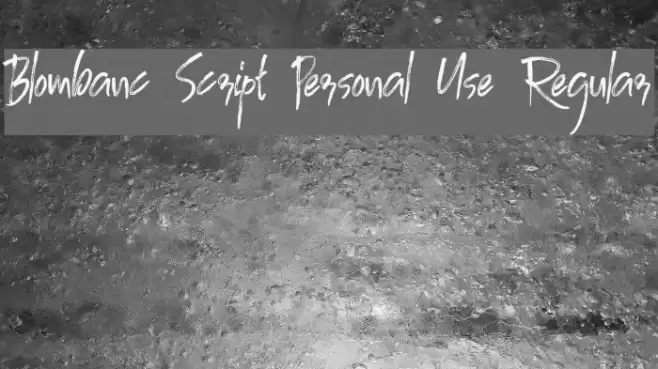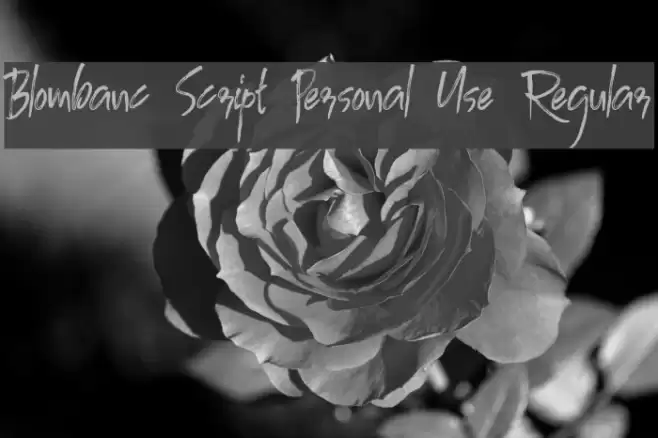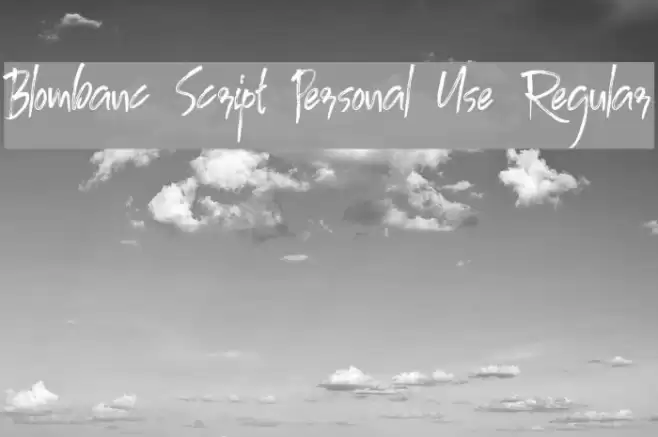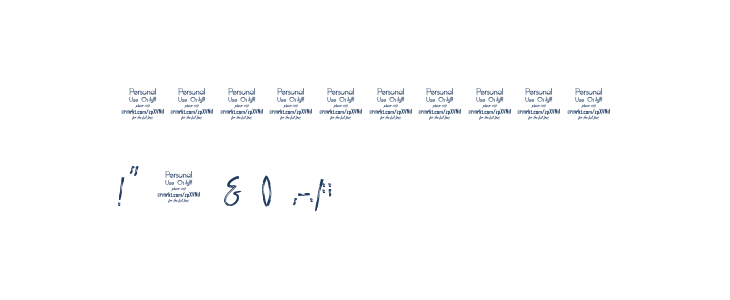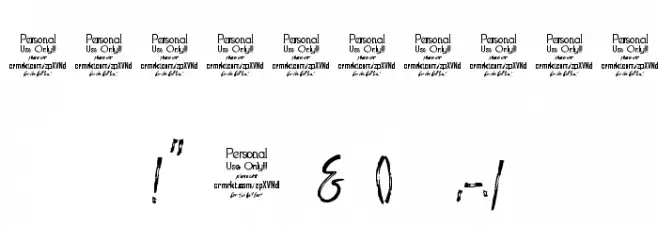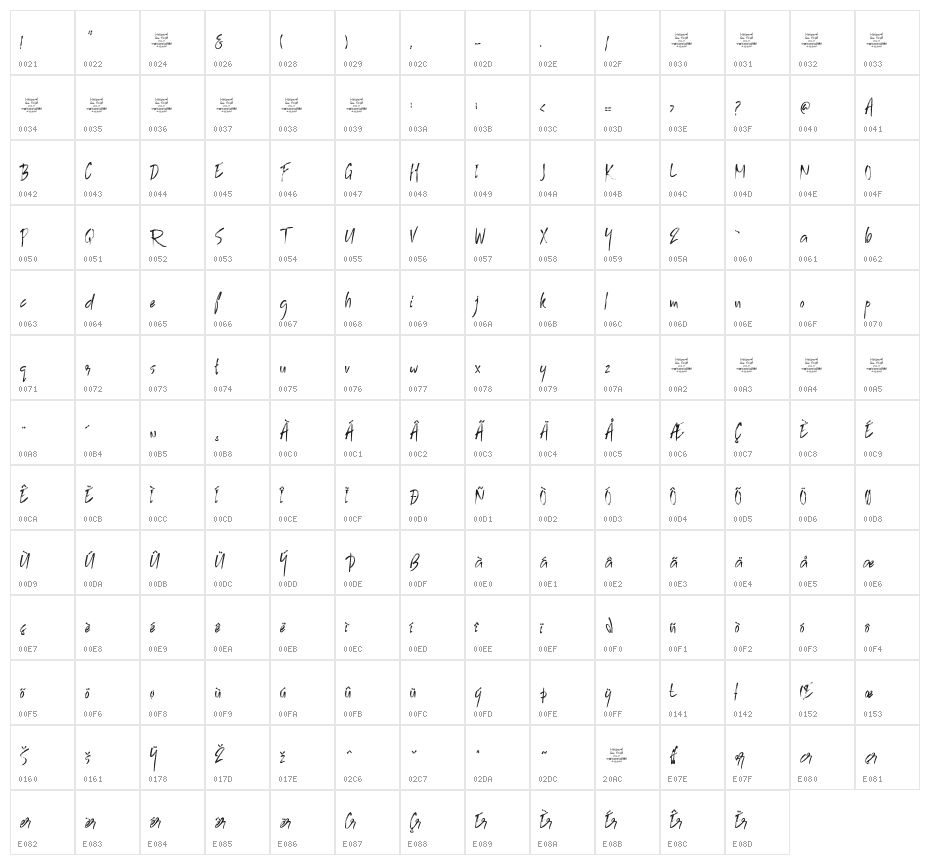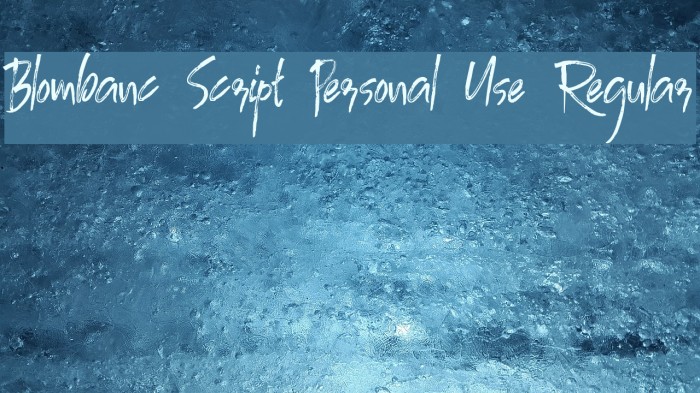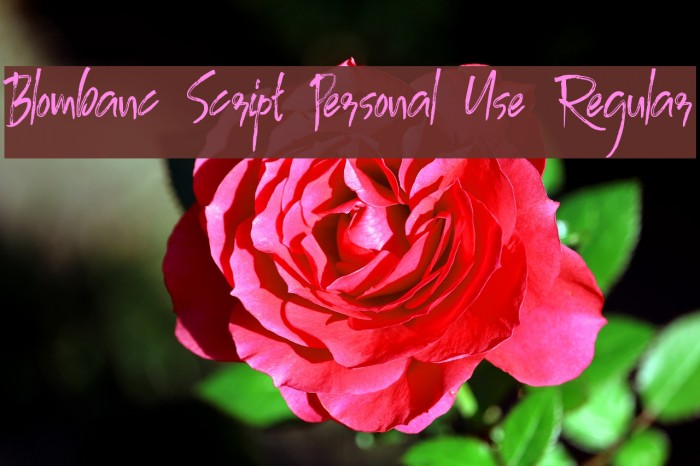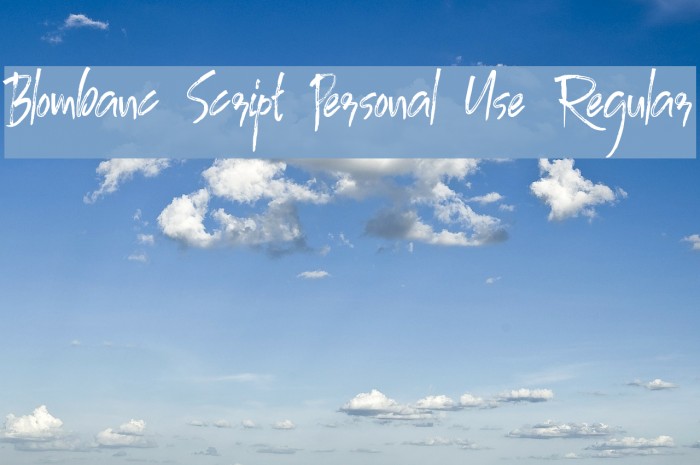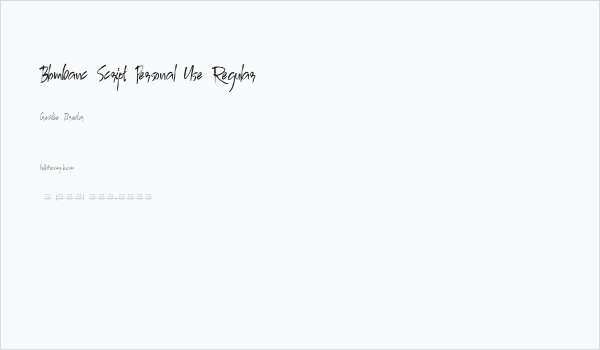
Blombanc Script Personal Use Regular Font
This font features a dynamic and expressive script style, characterized by its brush-like strokes and fluid, hand-drawn appearance. The uppercase letters are bold and dramatic, with varying stroke widths that add a sense of movement and energy. The lowercase letters maintain a cohesive flow, complementing the uppercase with their elegant curves and slightly irregular forms. The numerals and special characters are crafted with the same artistic flair, ensuring a consistent aesthetic throughout. This font's unique style makes it stand out, offering a personal and artistic touch to any design.
A dynamic, brush-style script font with expressive, hand-drawn strokes from Uncategorized fonts.
- Proposed Projects: Ideal for creative projects such as invitations, posters, branding, and artistic designs that require a personal touch.
- Use Case: Logos, Headlines, Artistic designs